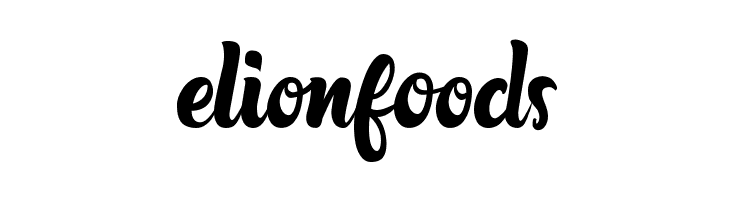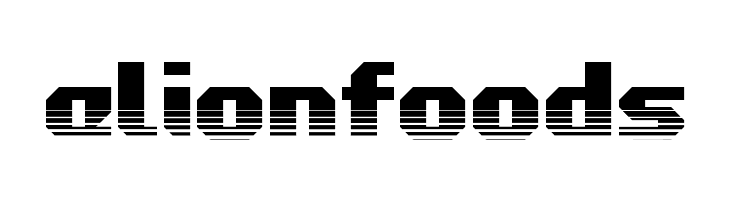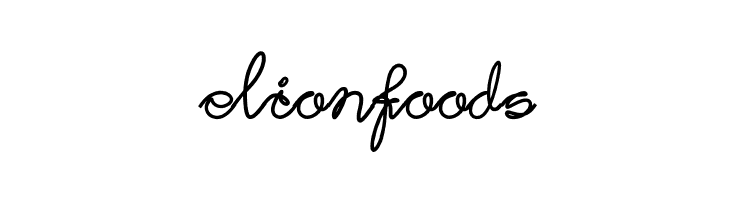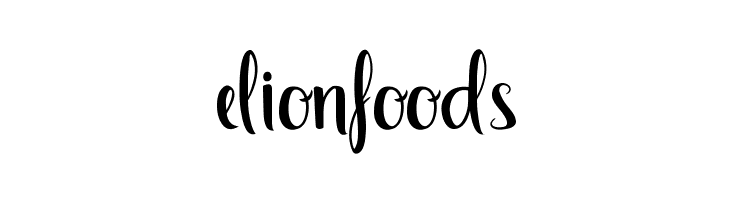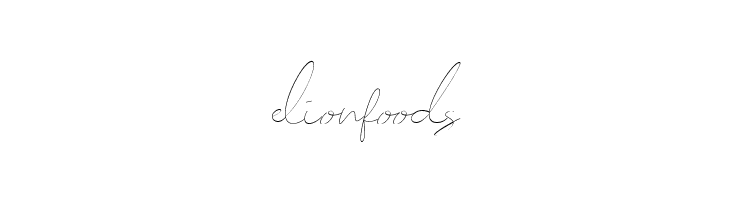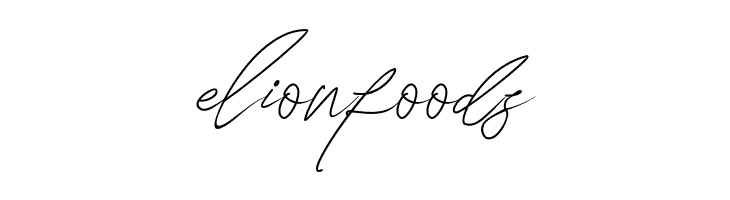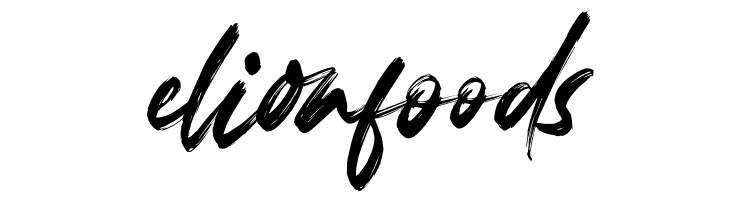
• Qintoun
A bold, flowing script font with elegant curves and a strong presence.
• BarForst
An elegant, flowing script font with a classic, sophisticated appearance.
• Baby Breath
A graceful, elegant handwritten font with fluid, connected letterforms.
• MolandikaScript
An elegant script font with intricate swashes and flowing lines.
• Love Conchetta
A graceful script font with flowing, interconnected letters and a handwritten feel.
• marry merry
A graceful script font with flowing, interconnected letters and a sophisticated style.
• Millenial Script - Personal Use
A bold, flowing script font with elegant, connected letters.
• Balcony Signature
An elegant, cursive script font with flowing lines and graceful curves.
• Shutterday
An elegant script font with flowing, interconnected characters and ornate flourishes.
• Feeling Beiges
A playful, handwritten font with flowing, interconnected letterforms and a whimsical style.
• Robojeck
A futuristic, geometric font with angular and linear design.
• Commonwealth Halftone
A bold, geometric font with a halftone effect and blocky structure.
• SurfQuest Halftone
A bold, dynamic font with a halftone effect and retro-futuristic style.
• Punch Twotone Italic
A bold, italicized font with a two-tone gradient effect, exuding energy and modernity.
• RaflesiaArnoldi-Regular
An elegant, flowing script font with intricate loops and flourishes.
• uings
A playful and elegant font with cursive-like strokes and whimsical design.
• Barithom Signature Regular
A sophisticated, elegant handwritten font with flowing, interconnected letterforms.
• POPCORNRegular
A playful and whimsical font with bold, rounded letters and decorative swirls.
• Zolland
A delicate and flowing script font with elegant, thin strokes.
• Eternal California
A lively and elegant script font with fluid, cursive strokes and a handwritten appearance.
• MajestySquare